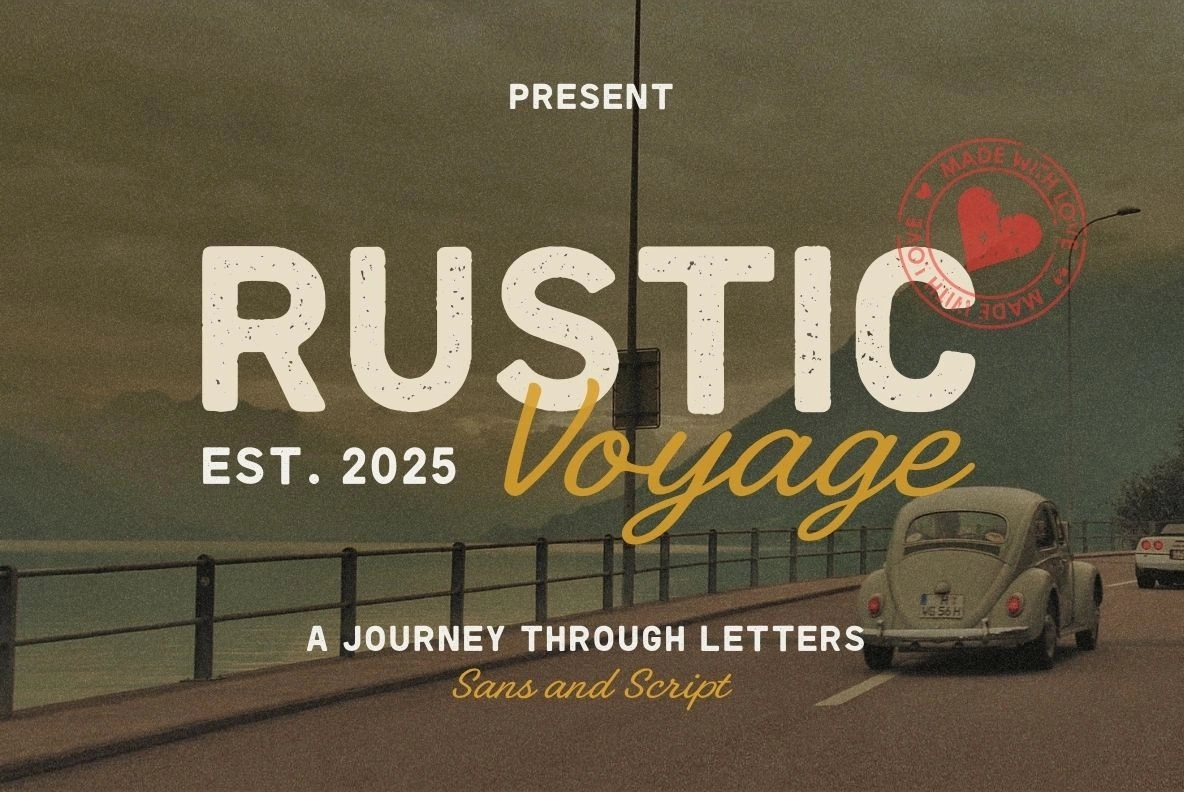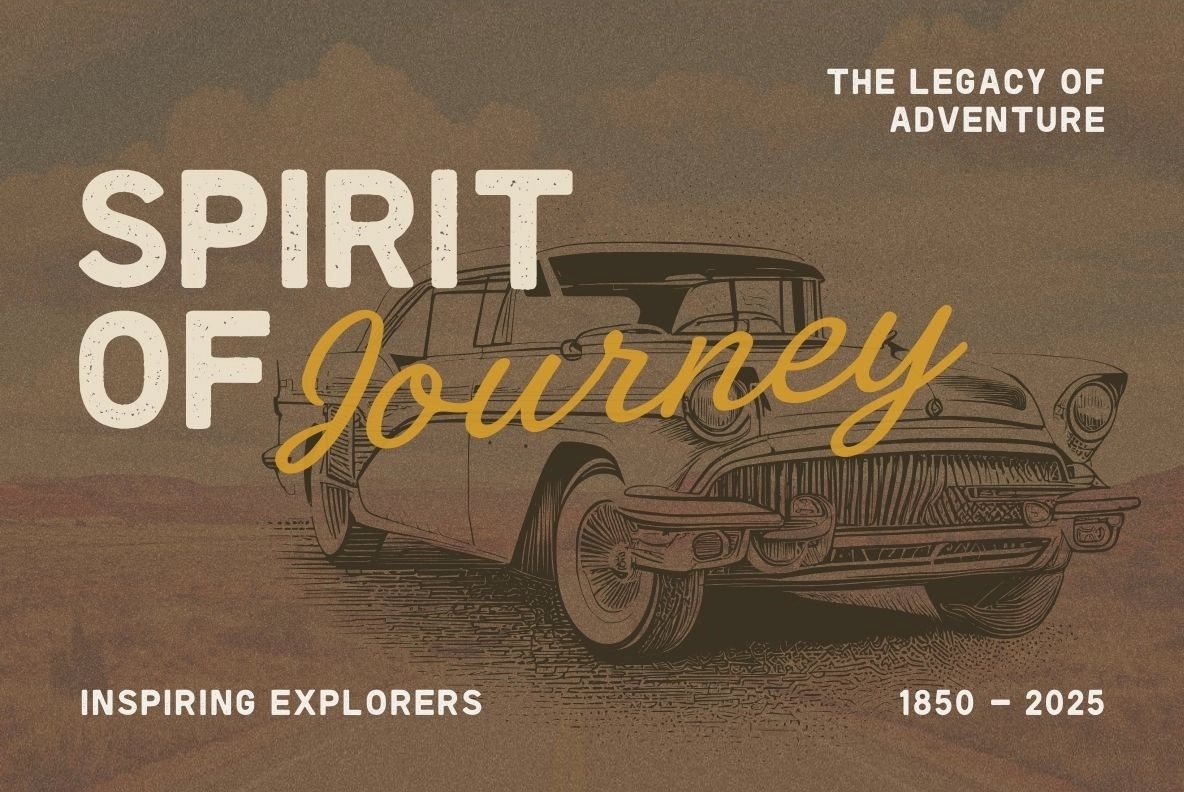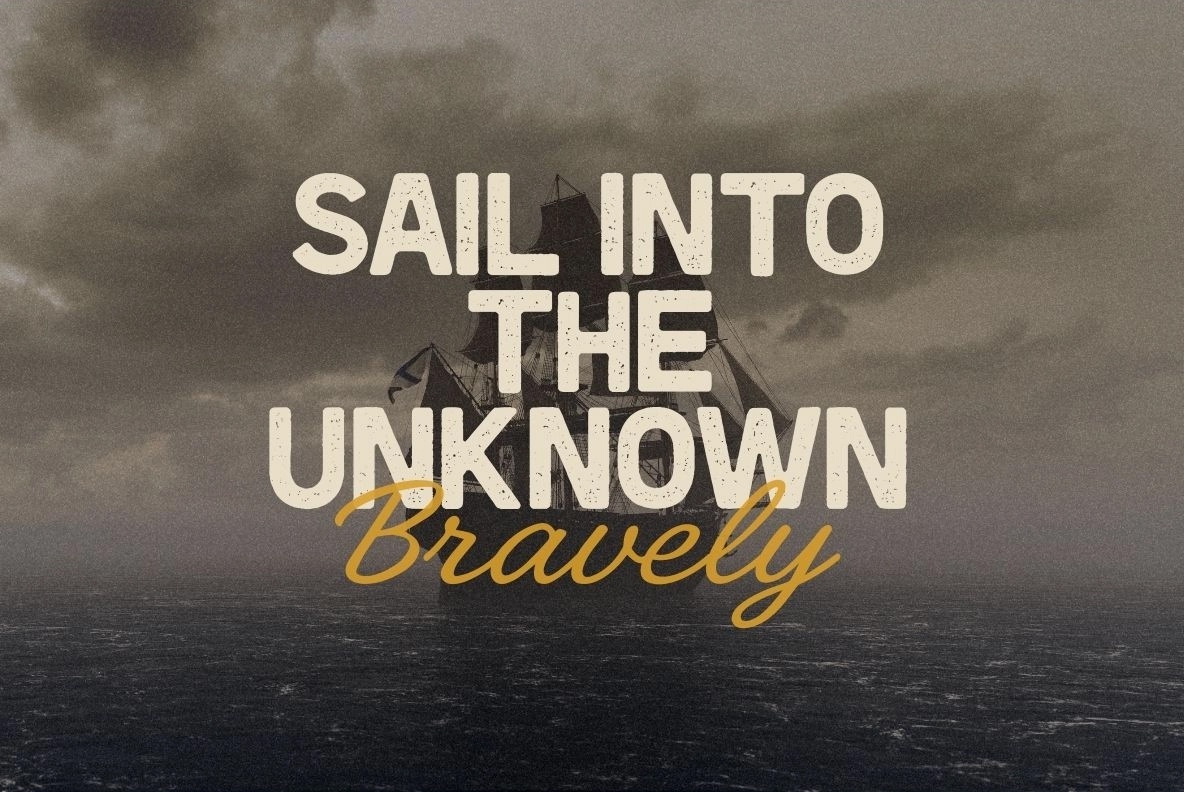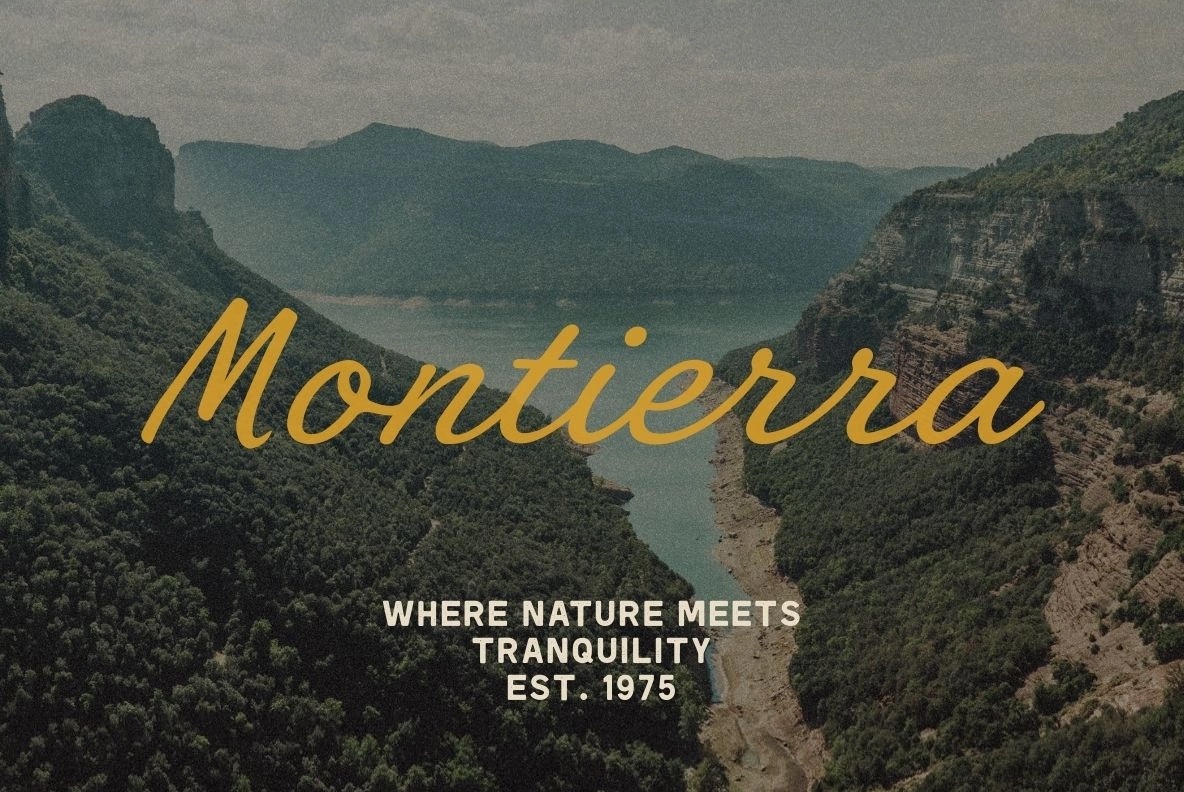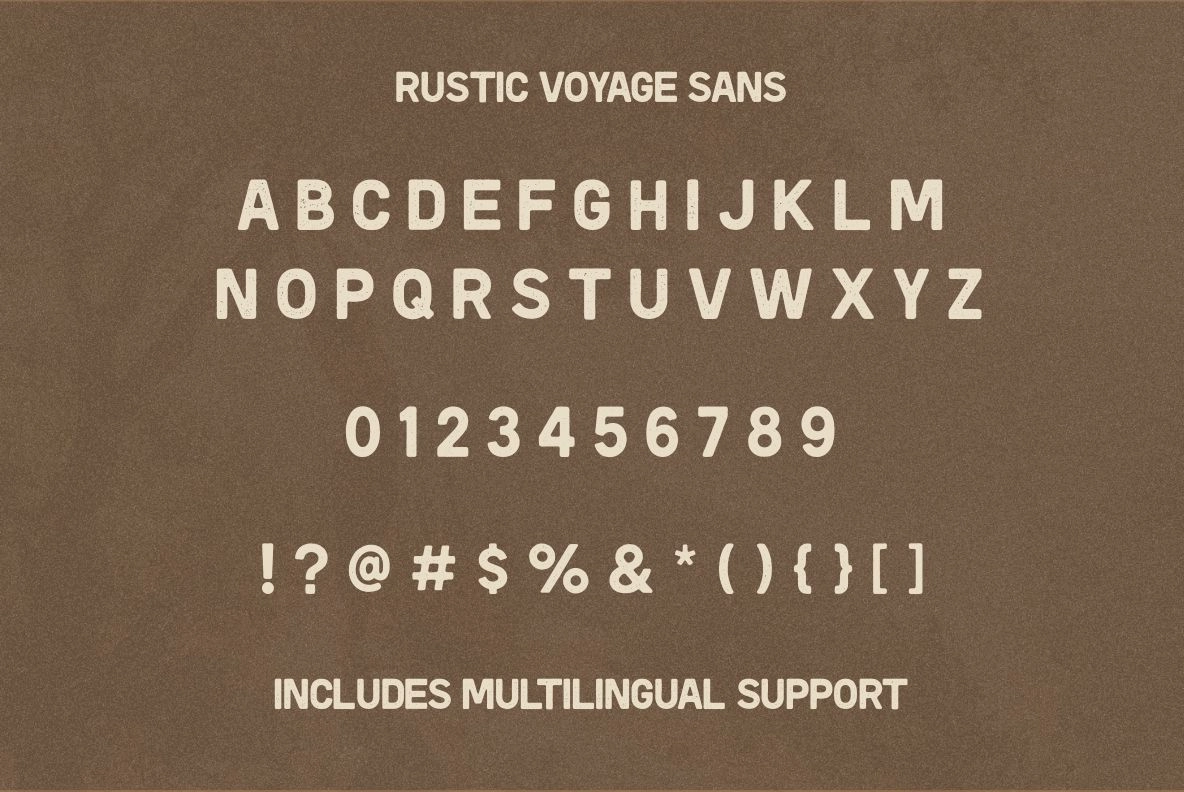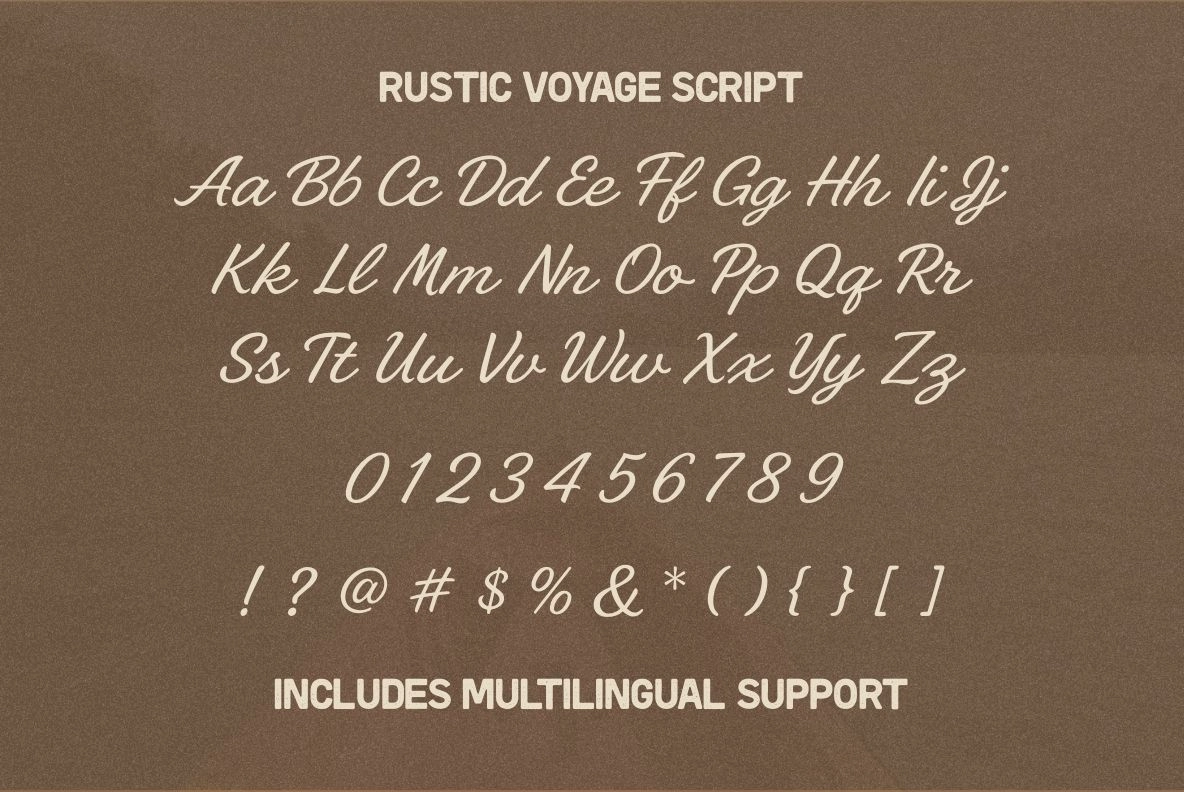
Rustic Voyage – Font Duo
Embark on a timeless design journey with Rustic Voyage, a handcrafted Font Duo that blends vintage charm and modern sophistication.
This duo combines a rough script and a clean sans-serif, creating the perfect balance for logos, packaging, posters, and branding with a nostalgic yet refined aesthetic.
Inspired by hand-painted travel signage and coastal adventures, Rustic Voyage brings a warm, organic character to every letter — perfect for those who love designs that feel authentic, bold, and full of story.
- Rustic Voyage Script (handcrafted brush style)
- Rustic Voyage Sans (clean all-caps companion)
- Uppercase & lowercase
- Retro-inspired branding
- Coffee shops & outdoor apparel
- Packaging design
- Vintage logo projects
- Editorial & signage work